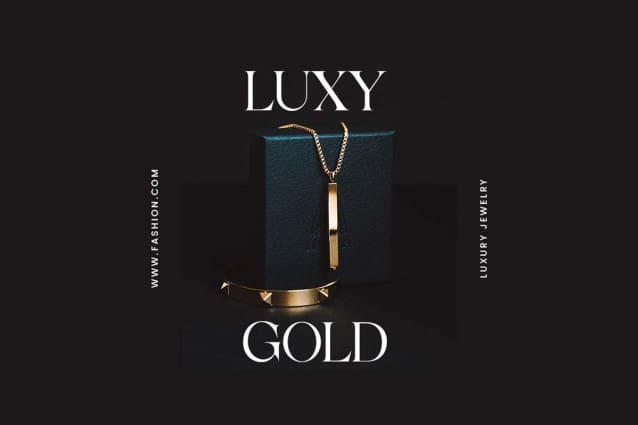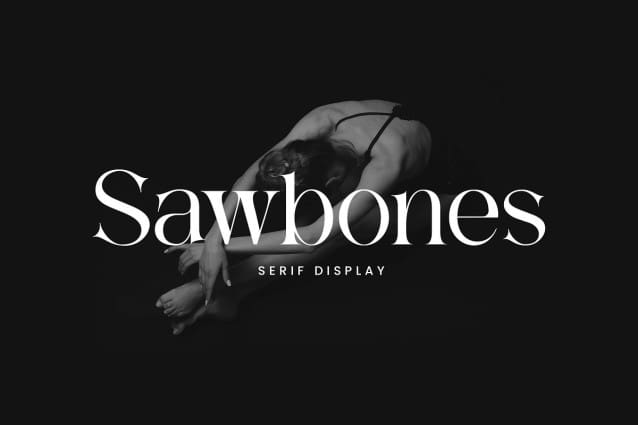
Sawbones Font
Sawbones Font – Serif Display Font. The modern display font feels beautiful classy, elegant, and stylish. This font is ideally suited for a wide variety of projects, such as signature, stationery, logo, wedding, typography quotes, magazine or book covers, website headers, branding, and more. Also, fashion-related branding or editorial design displays both masculine and feminine qualities.